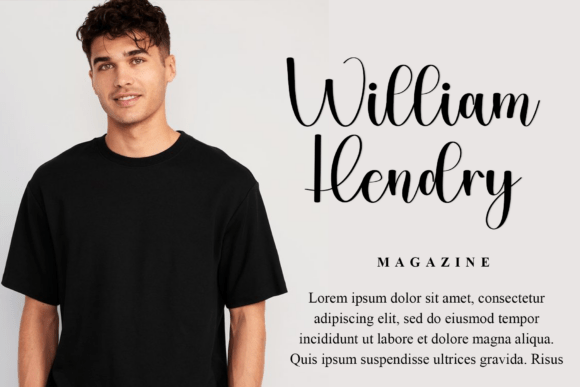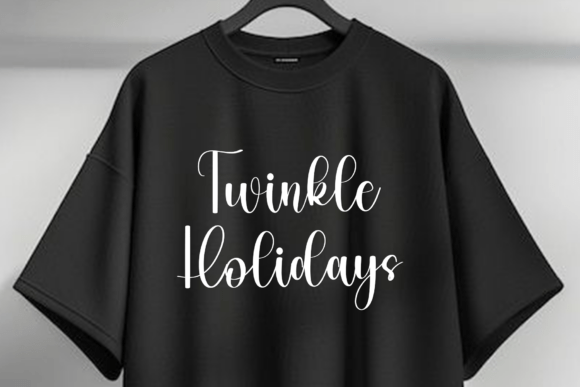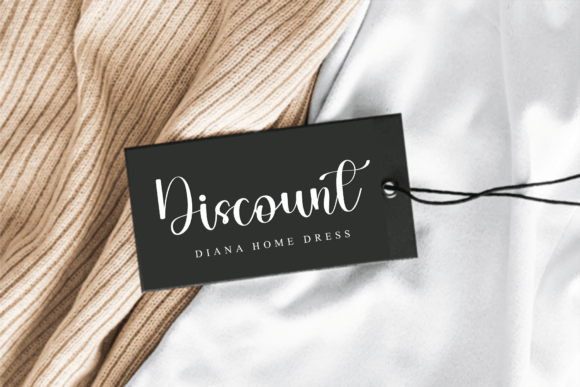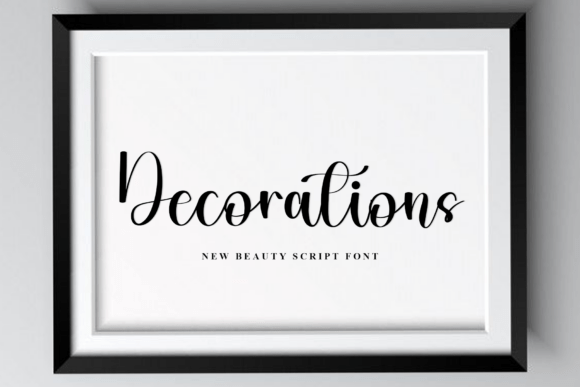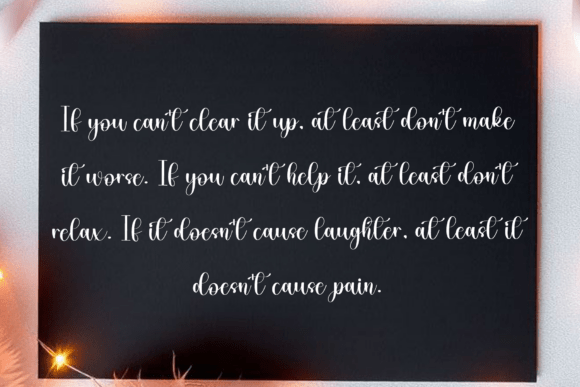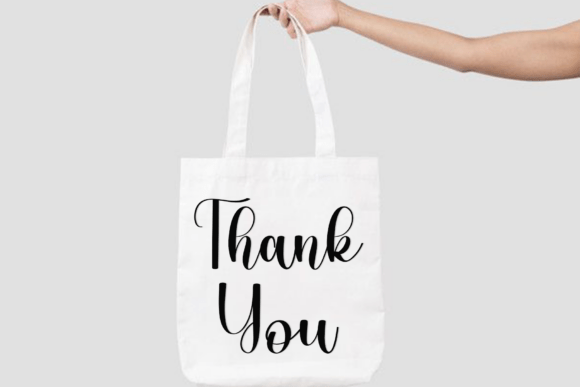
The Elegance of Movement: Unveiling the Ballet Signature Font
As a designer, you’ve probably found yourself lost in a sea of inspiration, scrolling through Pinterest boards and design blogs, searching for that perfect font to elevate your next project. And then, it hits you – a delicate, flowing script that captures the essence of movement and elegance. For many, this moment of discovery is the spark that sets their creative journey ablaze.
Meet the Ballet Signature Font, a handcrafted script that seamlessly blends the sophistication of calligraphy with a modern, flowing aesthetic. This exquisite typeface is designed to bring a soft, romantic touch to your designs, making it perfect for branding, wedding invitations, social media graphics, and more. With its smooth curves and confident flourishes, the Ballet Signature Font is a valuable addition to any designer’s toolkit, offering timeless charm and poise that’s sure to leave a lasting impression.
Ballet Signature Font Key Features
• Unique Characteristics: Elegant, cursive script with flowing connections and subtle flourishes, ideal for formal invitations, wedding stationery, and signature designs
• Font Style: Script, Calligraphy
Ballet Signature Font Review
Overall, I think the Ballet Signature Font has some lovely qualities, but it’s not without its limitations. ✨ Let’s start with what works well.
• The elegant and refined feel of the font is perfect for creating high-end, luxurious designs.
• The varied line widths and flourishes add a touch of sophistication and visual interest.
• The font is well-suited for use in logos, branding, and advertising materials where a premium look is desired.
However, there are some limitations to consider. ⚠️
• The font may be too ornate for some designs, and can feel cluttered or overwhelming if used extensively.
• The lack of a bold weight means that the font may not be as effective in larger text sizes or for creating emphasis.
• The font may not be as versatile as some other options, and may not work well in all design contexts.
Overall, I think the Ballet Signature Font is a beautiful and elegant choice, but it’s best suited for specific design projects where its unique qualities can shine. With a bit of restraint and careful consideration, this font can add a touch of luxury and sophistication to your designs.
Use the Ballet Signature Font for elegant and sophisticated designs, such as wedding invitations, fashion branding, and fine art projects.
Experiment with different font sizes and styles to create visual interest and hierarchy in your design.
Combine the Ballet Signature Font with other elegant fonts for a unique and refined look.
The Ballet Signature Font is ideal for:
Fashion branding and marketing materials
Fine art and photography projects
Luxury product packaging and labeling
Alternatives to Ballet Signature Font
Aurora
Aurora is a beautiful, elegant script font perfect for creating invitations, wedding stationery, and other high-end designs. It features flowing connections and intricate details, making it ideal for those looking for a sophisticated and luxurious feel. Aurora is a great alternative to Ballet Signature Font for designers who want to create a more refined and polished look.
Carolyna Pro is a modern, stylish script font that’s perfect for creating eye-catching headlines and titles. Its unique connections and dynamic feel make it ideal for designers who want to add a touch of sophistication and elegance to their designs. Compared to Ballet Signature Font, Carolyna Pro has a more modern and edgy feel, making it a great choice for designers who want to create a more contemporary look.